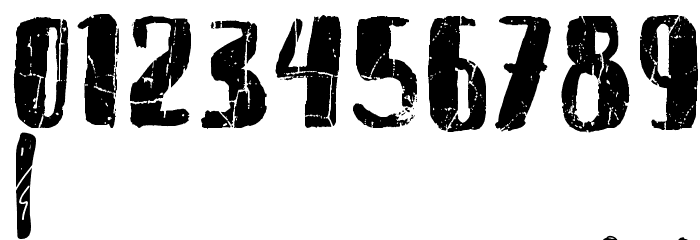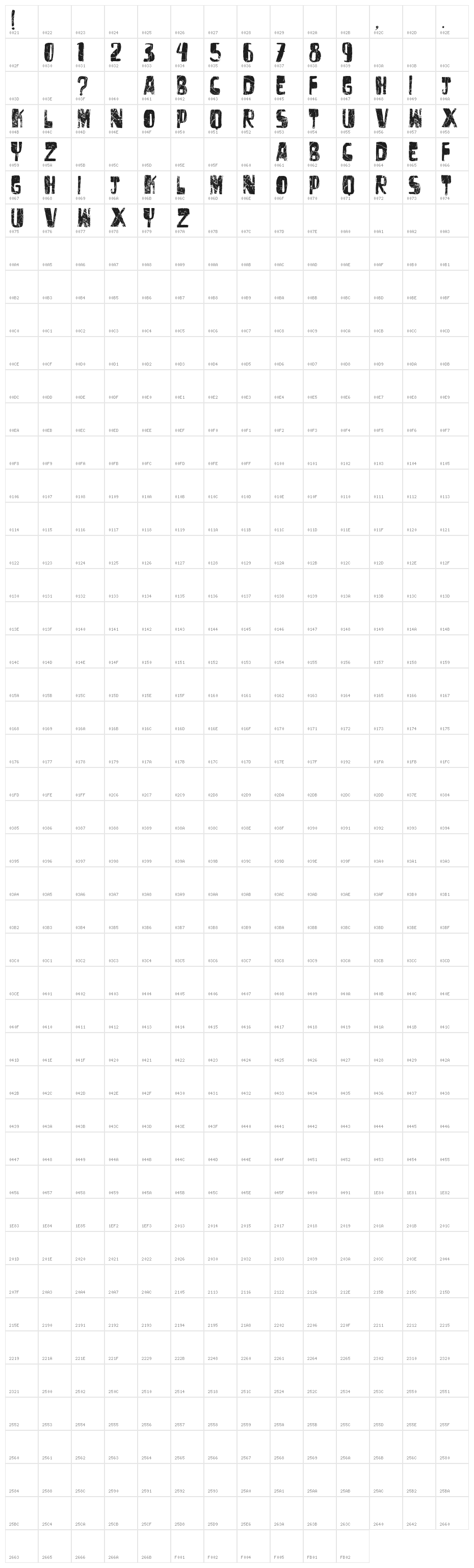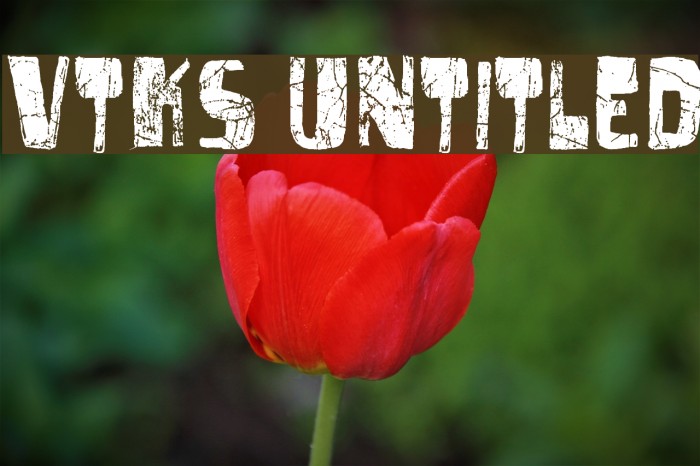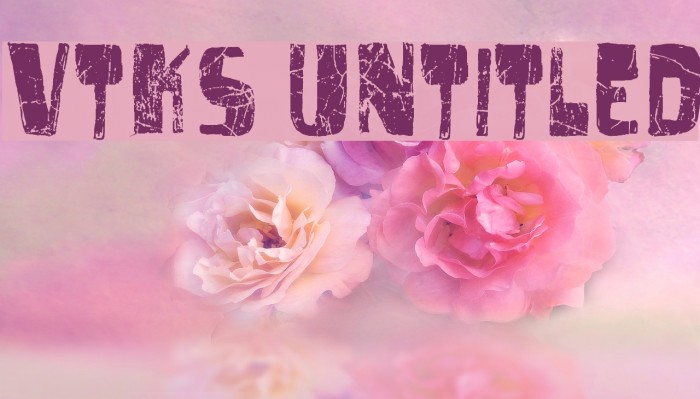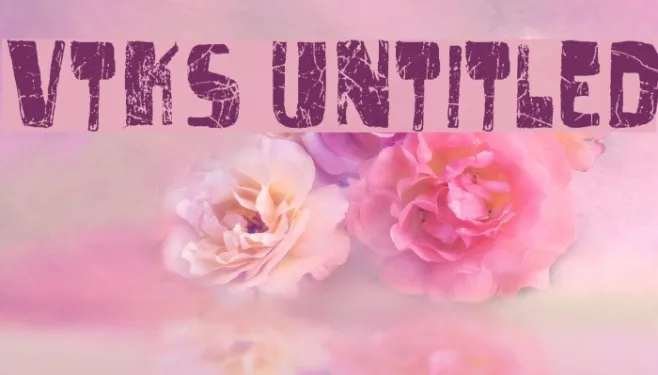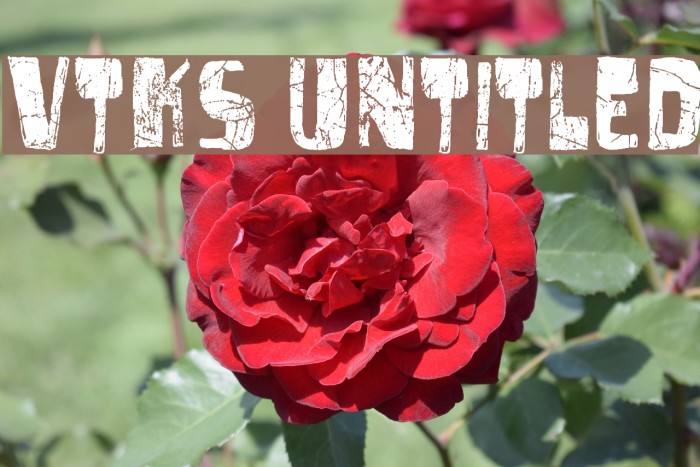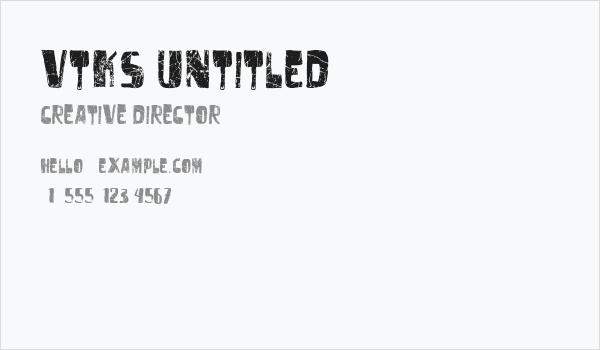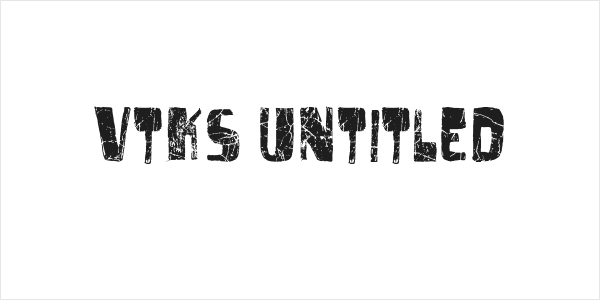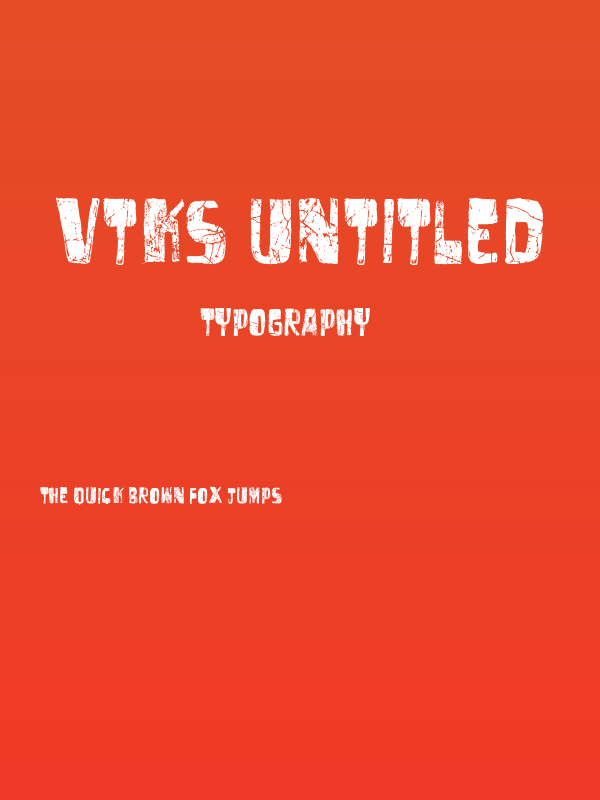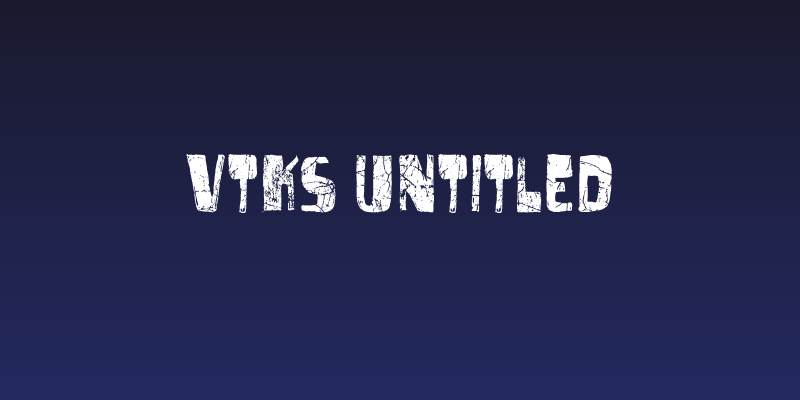
vtks untitled Font
vtks untitled Description
This font features a distressed, grunge style with a bold and rugged appearance. The characters are heavily textured, giving them a worn and weathered look, reminiscent of aged posters or graffiti. The uppercase and lowercase letters maintain a consistent style, with jagged edges and irregular shapes that add to the chaotic aesthetic. Numbers and special characters follow the same design, ensuring uniformity across all glyphs. This font is ideal for projects that require a raw, edgy feel, such as music album covers, streetwear branding, or urban-themed graphics.
| Overall Style | Grunge, Urban, Distressed |
| Use Case | Logos, Posters, Headlines |
| Proposed Projects | Music album covers, streetwear branding, urban-themed graphics, posters. |